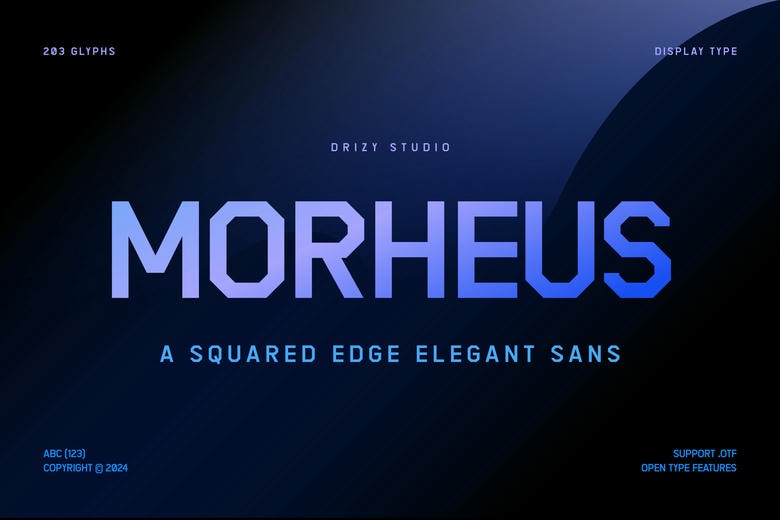
Morheus Font
Morheus is an Elegant Sans Serif Font. Morheus is refined and modern characterized typography typeface fit for the Clean Modern creative little one. This font is clearly cut with squared edges, neat, simplistic look which puts it in the perfect place for the UI and UX designs and projects that involves identification.
Whether you’re designing an innovative application, working on branding for a high-tech company or creating clean, looks like a high-end internet layouts Morheus looks unceremoniously practicable, but still looks incredibly professional.
Thanks to the sophisticated hierarchy and the recognizable shapes, it is equally good in the digital and the printed media, and its businesslike neoclassical appearance does not only give THE DISTRIBUTED a distinguished, clean look.
Morheus Sans Serif Font